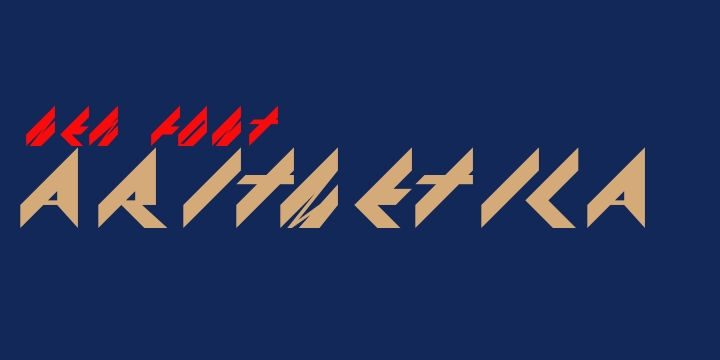
• Aritmetica
Aritmetica is a powerful font, guided by some invisible geometric rules alow you to express a direct futuristic look for your logos, designs, ...